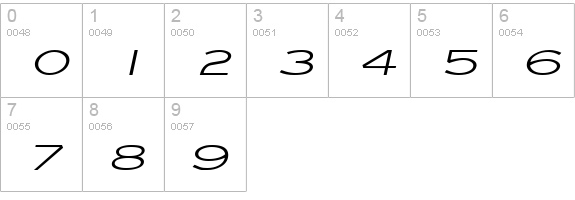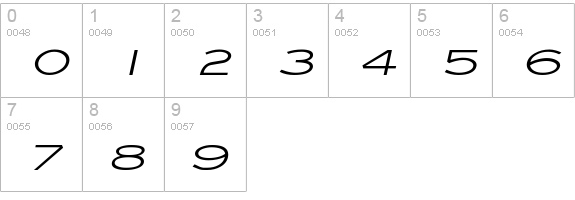
Eye glass Wide Italic Font Details
Eye glass Wide Italic is a distinctive, extended-width, italic variant in the Eye typeface family \xE2\x80\x94 well suited to design and typography projects.
Introducing Eye glass Wide Italic font - a modern and stylish typeface designed to make a bold statement. The sleek and elegant design of this font is perfect for adding a touch of sophistication to any project, whether it be for branding, advertising, or design work. With its wide and italicized form, Eye glass Wide Italic font exudes a sense of modernity and creativity. The clean lines and sharp angles of each letter create a visually striking appearance that is sure to captivate your audience. Best of all, Eye glass Wide Italic font is available for free download at FontsMarket.com, making it easily accessible for all your design needs. Don't miss out on the opportunity to elevate your projects with this stunning typeface - download Eye glass Wide Italic font today and unleash your creativity!